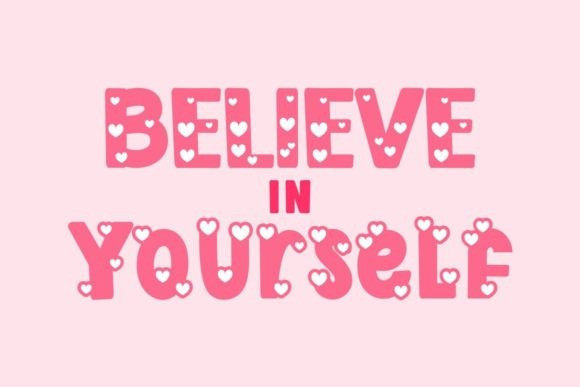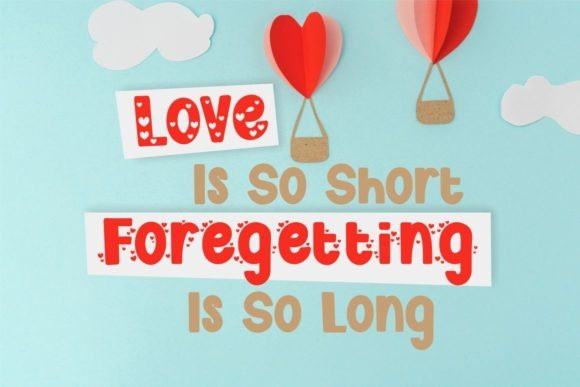
Cute Love Story Display Font
Cute Love Story is a fun, joyful and adaptable family font. Whether you use it for cartoon related designs, children games or just any creation that requires a lovely touch, this font will be an amazing choice.